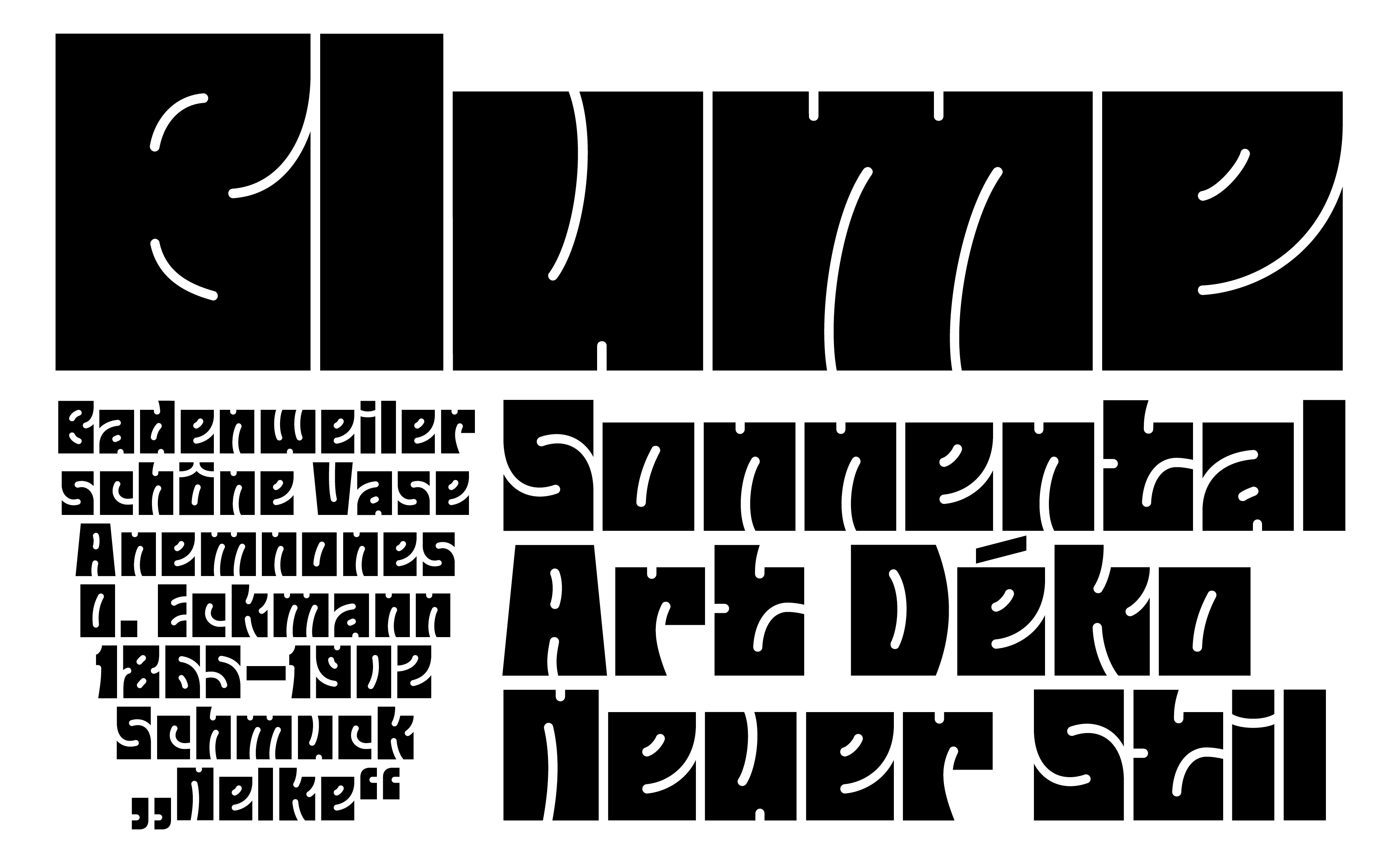
The two Rutor families Steel and Stone are inspired by the chiseled Art Nouveau inscriptions of Darmstadt's Mathildenhöhe and by the precision and aesthetics of a CNC milling machine. Like a variety of Art Nouveau typefaces, Rutor has a rectangle as its basic shape. An imaginary, freely controllable drill then cuts out the white spaces from the outside in. In order to create uniform word images, the letters are each given a drill radius as a left and right side bearing, which in turn results in a full drill diameter as letter spacing. While Rutor Stone has a floral, classic Art Nouveau appearance, Rutor Steel is very technical and angular. Both families share the same letter width, wich makes them interchangeable. In addition, Rutor is uniwidth, which means that a glyph takes up the same amount of space in all weights and both families.
Stone Regular
Stone Bold
Stone Black